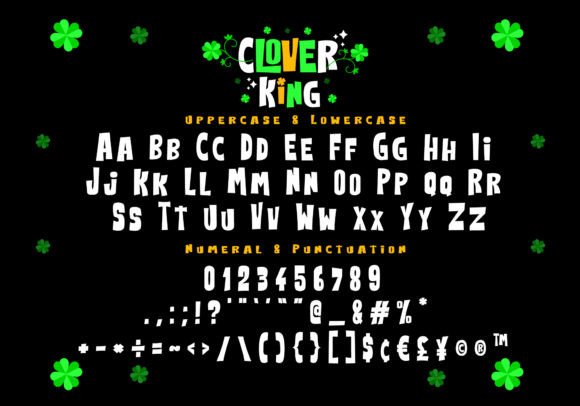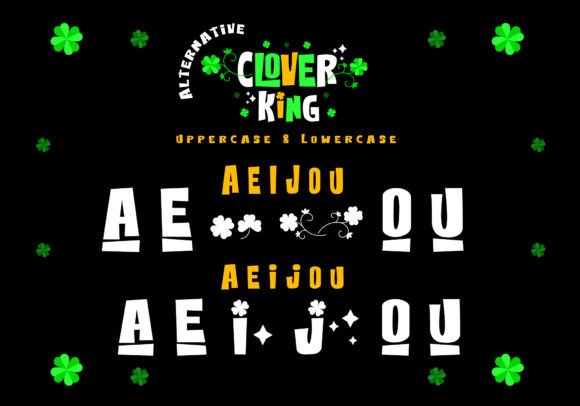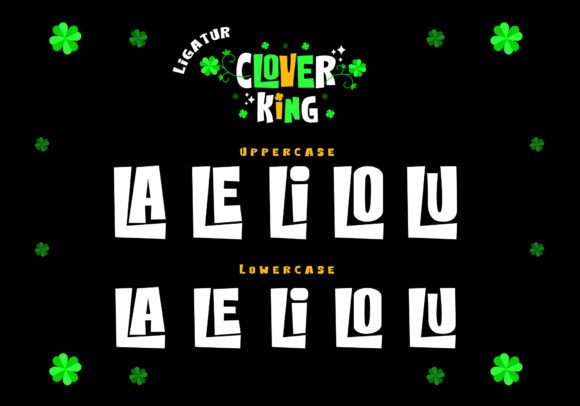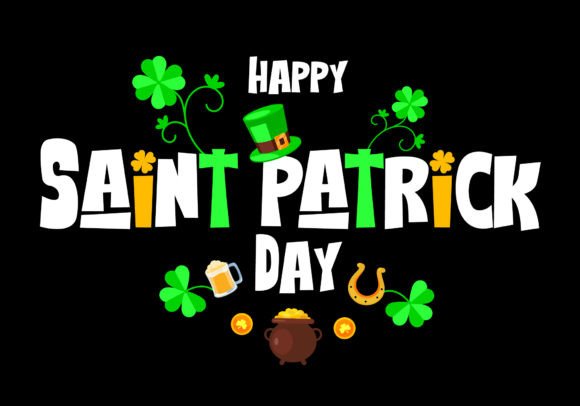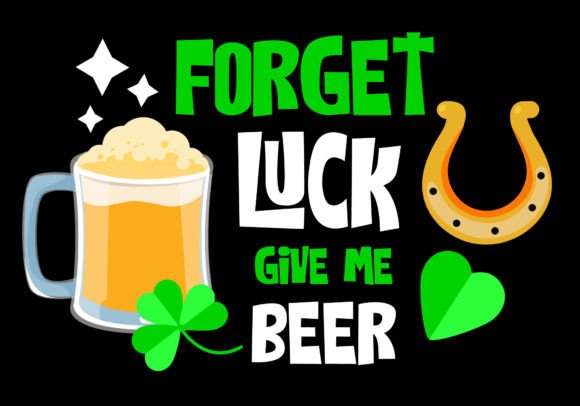
Clover King Font: The Ultimate Display Font for Modern Designs
In the world of typography, a font can make or break a design. When it comes to creating eye-catching and modern displays, the Clover King font stands out from the rest. This unique and stylish font is perfect for designers and crafters looking to add a touch of youthfulness and courage to their projects.
What is Clover King Font?
Clover King is a modern display font that boasts a distinctive style that will instantly grab attention. Its unique design makes it perfect for a wide range of applications, from comic book-style art to online games, cards, love shirts, posters, movie titles, and social media posts.
Key Features of Clover King Font
- Eye-catching and modern design: The Clover King font features a fresh and contemporary design that will make your projects stand out.
- Unique style: The font’s distinctive style will instantly grab attention and add a touch of personality to your designs.
- PUA encoded: The font is PUA (Private Use Area) encoded, which means you can access all the glyphs and swashes with ease.
- Versatile: The Clover King font is perfect for a wide range of applications, from digital designs to print materials.
Use Cases for Clover King Font
The Clover King font is perfect for designers and crafters who want to add a touch of youthfulness and courage to their projects. Here are some use cases where this font truly shines:
- Comic book-style art: The Clover King font is perfect for creating comic book-style art, with its bold and eye-catching design.
- Online games: The font’s modern and edgy design makes it perfect for online games, adding a touch of excitement and energy.
- Cards and love shirts: The Clover King font is perfect for creating romantic and playful designs, such as cards and love shirts.
- Posters and movie titles: The font’s bold and eye-catching design makes it perfect for creating posters and movie titles that grab attention.
- Social media posts: The Clover King font is perfect for creating eye-catching social media posts that stand out from the crowd.
Benefits of Using Clover King Font
Using the Clover King font offers several benefits, including:
- Increased visibility: The font’s eye-catching design will make your projects stand out and grab attention.
- Improved brand identity: The Clover King font can help you create a unique and recognizable brand identity.
- Enhanced creativity: The font’s unique design will inspire creativity and add a touch of personality to your projects.
Tips for Using Clover King Font
Here are some tips for getting the most out of the Clover King font:
- Experiment with different sizes and colors: The Clover King font looks great in a variety of sizes and colors, so don’t be afraid to experiment.
- Pair with other fonts: The Clover King font pairs well with other fonts, so try combining it with other fonts to create a unique look.
- Use it consistently: Use the Clover King font consistently across your projects to create a recognizable brand identity.
The Clover King font is a versatile and eye-catching display font that is perfect for designers and crafters looking to add a touch of youthfulness and courage to their projects. With its unique style, PUA encoding, and versatility, this font is sure to become a favorite in your design arsenal.